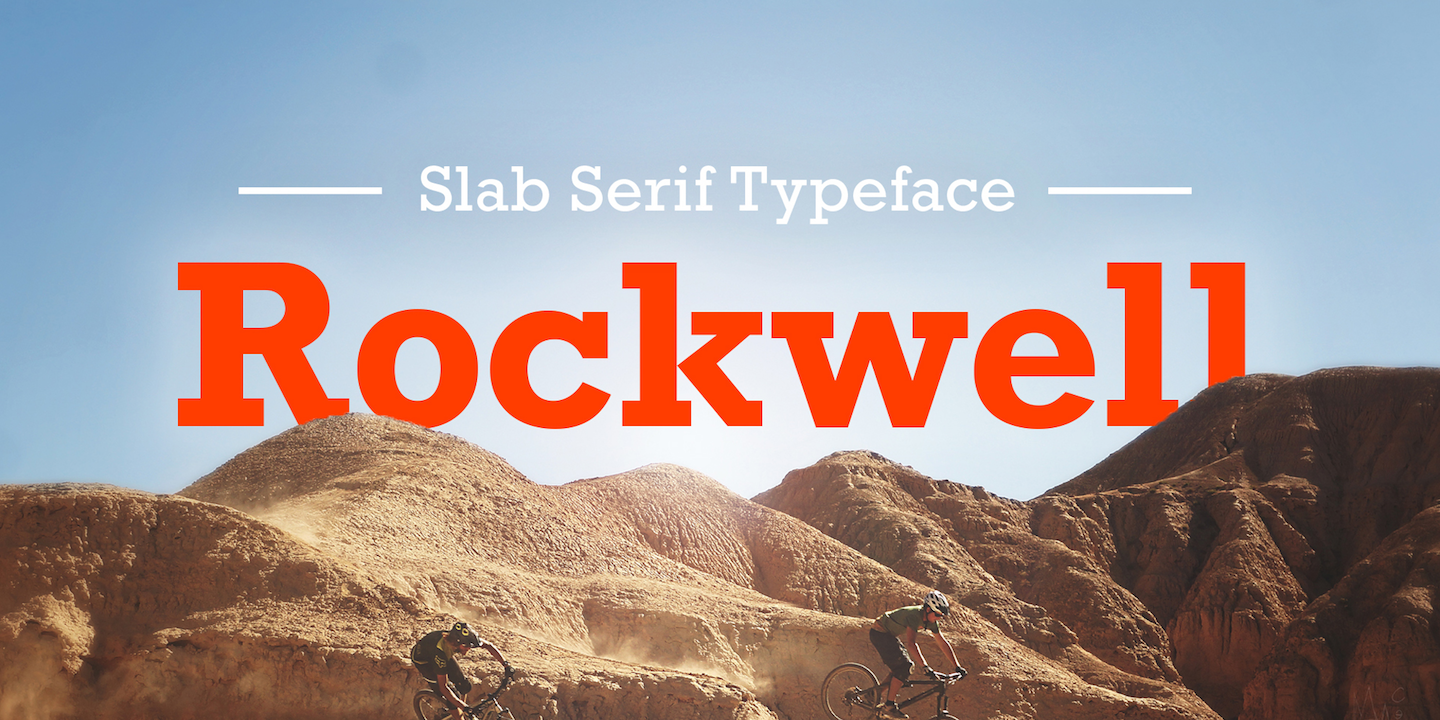
Rockwell Font is ideal for bold headlines, industrial branding, construction company logos, vintage advertising posters, newspaper headlines, strong corporate communications, mechanical design presentations, robust signage systems, manufacturing materials, and impactful marketing campaigns. This powerful slab serif typeface brings commanding strength and industrial reliability to authoritative design applications.
What makes Rockwell Font so exciting is its extraordinary combination of geometric precision and industrial strength that creates an unmistakable sense of reliability and American manufacturing heritage. The font features bold, rectangular slab serifs with consistent stroke weights and mechanical construction that reflects the robust engineering principles of the industrial age. Its distinctive characteristics include strong vertical emphasis, uniform thickness, and geometric clarity that ensure exceptional readability and commanding presence across all applications. The font's association with American industrial design and its proven performance in demanding environments make Rockwell Font the definitive choice for brands seeking to communicate strength, dependability, and unwavering quality standards.
The Rockwell Font family includes comprehensive weights and styles: Light, Regular, Bold, Extra Bold, and Condensed variations, each maintaining the distinctive slab serif character. The extensive character set encompasses complete Latin alphabet support, industrial-grade numerals, technical punctuation marks, mathematical symbols, and broad international language coverage. Professional features include precise spacing optimization for headlines and text, contextual alternates that enhance industrial appearance, consistent baseline alignment for technical applications, and robust construction that ensures clarity at all sizes and reproduction methods.
Whether you're creating industrial brand identities, construction communications, or bold advertising materials, Rockwell Font Free Download provides the authoritative typography that projects strength and reliability in competitive markets. Its exceptional versatility makes it suitable for both large-scale environmental graphics and detailed technical documentation, while its commanding presence ensures immediate brand recognition and lasting impact. The font's combination of American industrial heritage and contemporary functionality makes it essential for manufacturers, construction companies, engineering firms, and any organization seeking typography that communicates the strength, precision, and unwavering reliability that define excellence in American industrial and manufacturing traditions.